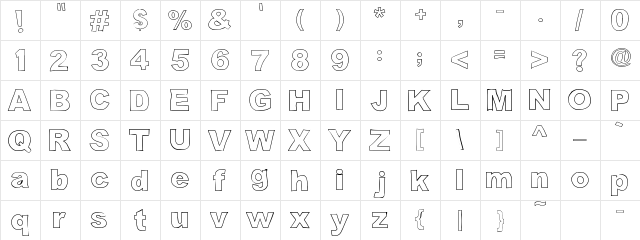
2Peas Cross Eyed Regular
| Foundry | Two Peas in a Bucket |
| Designer | Amy Grendell |
Design Context for 2Peas Cross Eyed Typeface
2Peas Cross Eyed takes a measured approach to typography — its balanced proportions and neutral character make it a reliable workhorse for both digital and print work.